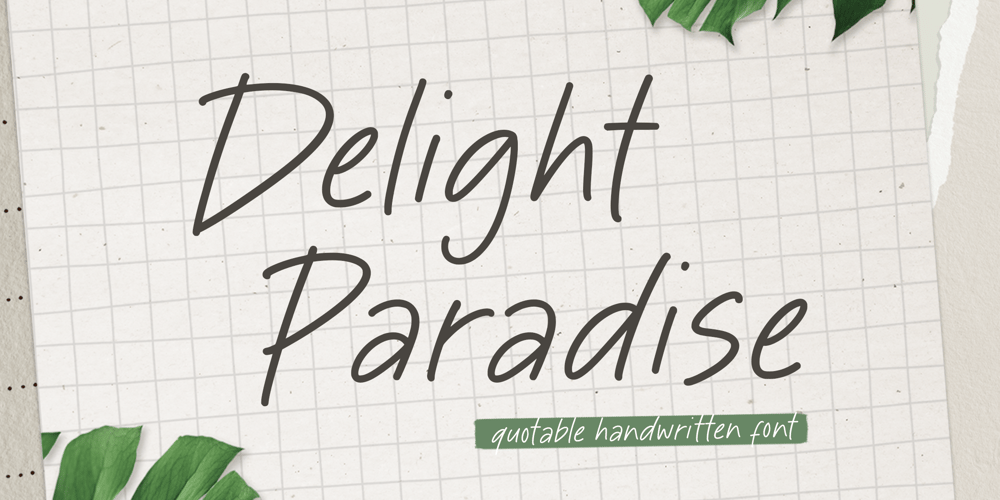
Delight Paradise Font Family was designed by Wara Sigit Tri Pamungkas and published by Timurtype. Delight Paradise contains 1 styles and family package options. Introducing by Timur typeProudly Present, Delight Paradise A Handwritten FontDelight Paradise is perfect for product packaging, branding project, megazine, social media, wedding, or just used to express words above the background.This Delight Paradise font includes:-Full Set of standard alphabet and punctuation & symbol-Extra set Alternate ending lowercase-multilingual support.Embelish your designs with our original fonts.Enjoy the font, Thank you!